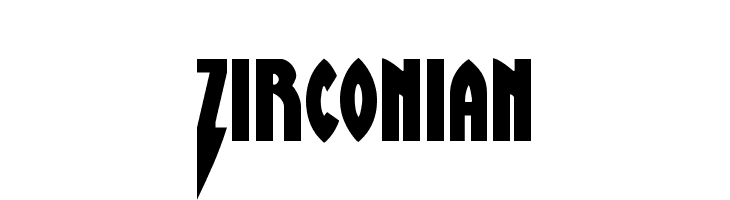
A bold, geometric font with a strong visual impact and uniform width.
A bold, geometric 3D font with a futuristic and dynamic style.
A bold, 3D italic font with a futuristic and dynamic style.
A bold, condensed font with a geometric and modern style.
A bold, condensed, and italic font with high contrast and a modern, dynamic style.
A bold, expanded font with a geometric and futuristic style.
A bold, expanded, and italicized font with a dynamic and impactful style.
A bold, italic font with sharp angles and high contrast, perfect for dynamic designs.
A bold, left-slanted font with geometric shapes and strong visual impact.
A bold, geometric outline font with a modern and futuristic style.